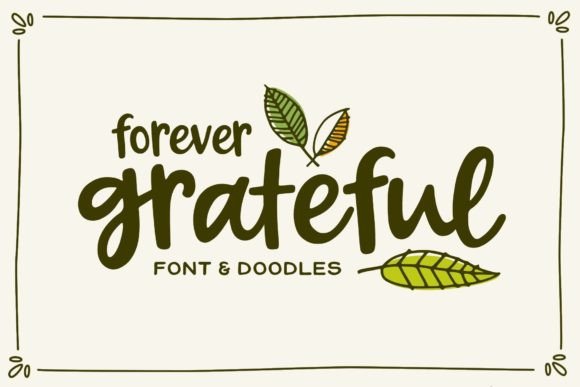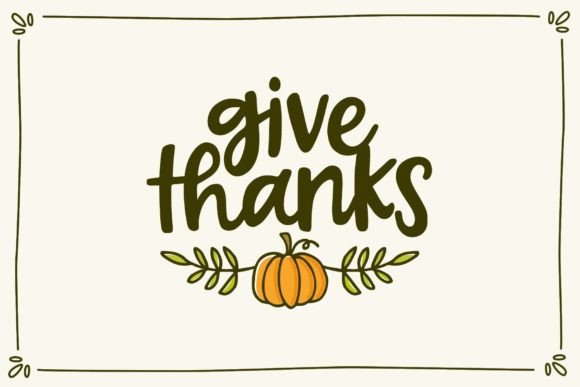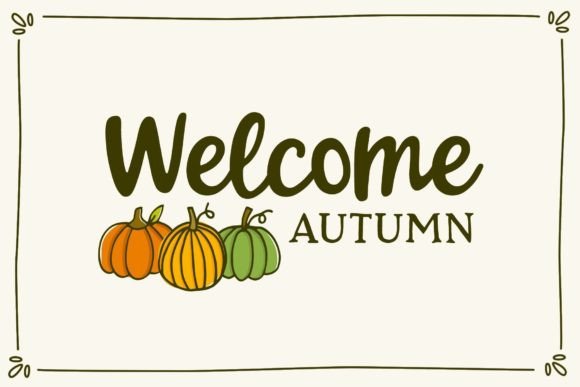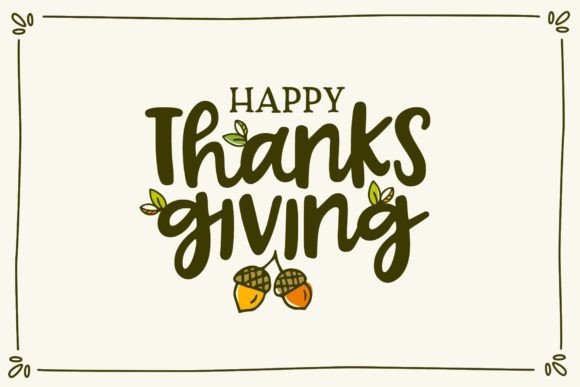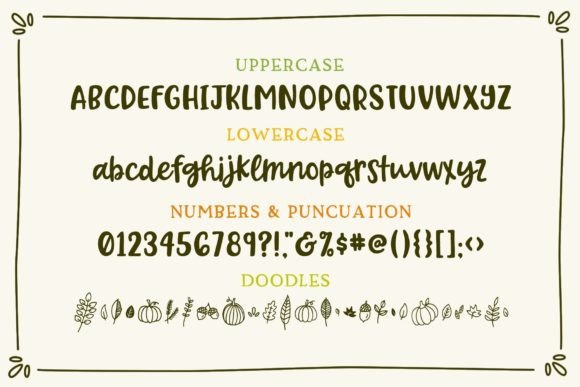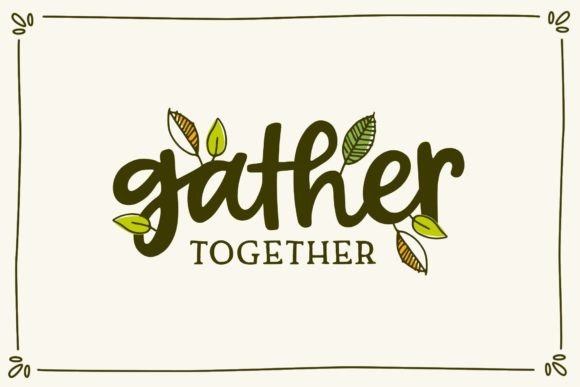
Forever Grateful Font
About Forever Grateful Font
Forever Grateful is a playful and hand-drawn script font that exudes a casual and friendly feel, making it a versatile choice for a variety of creative projects and designs. The font’s whimsical and approachable style adds a touch of personality to your text, creating a warm and inviting atmosphere.
One standout feature of Forever Grateful is its bonus set of autumn-themed doodles. These doodles are designed to complement the font and can be accessed using both uppercase and lowercase letters with Forever Grateful Doodles. This additional set of elements enhances the font’s versatility, allowing you to create autumn-themed designs with ease.
The playful script of Forever Grateful is suitable for a range of applications, including greeting cards, invitations, posters, social media graphics, and more. Its informal and friendly nature makes it particularly well-suited for projects where a handwritten and approachable style is desired.
Whether you’re expressing gratitude in a thank-you card or creating autumn-themed promotional materials, Forever Grateful provides a delightful and creative solution. The inclusion of doodles adds an extra layer of customization, allowing you to infuse your designs with seasonal charm and personality.
In summary, Forever Grateful is not just a font; it’s a playful and versatile design tool that brings a hand-drawn and friendly script to your creative projects. The bonus set of autumn-themed doodles further expands the font’s creative possibilities, making it an excellent choice for adding a touch of warmth and whimsy to your designs, especially those associated with the autumn season.